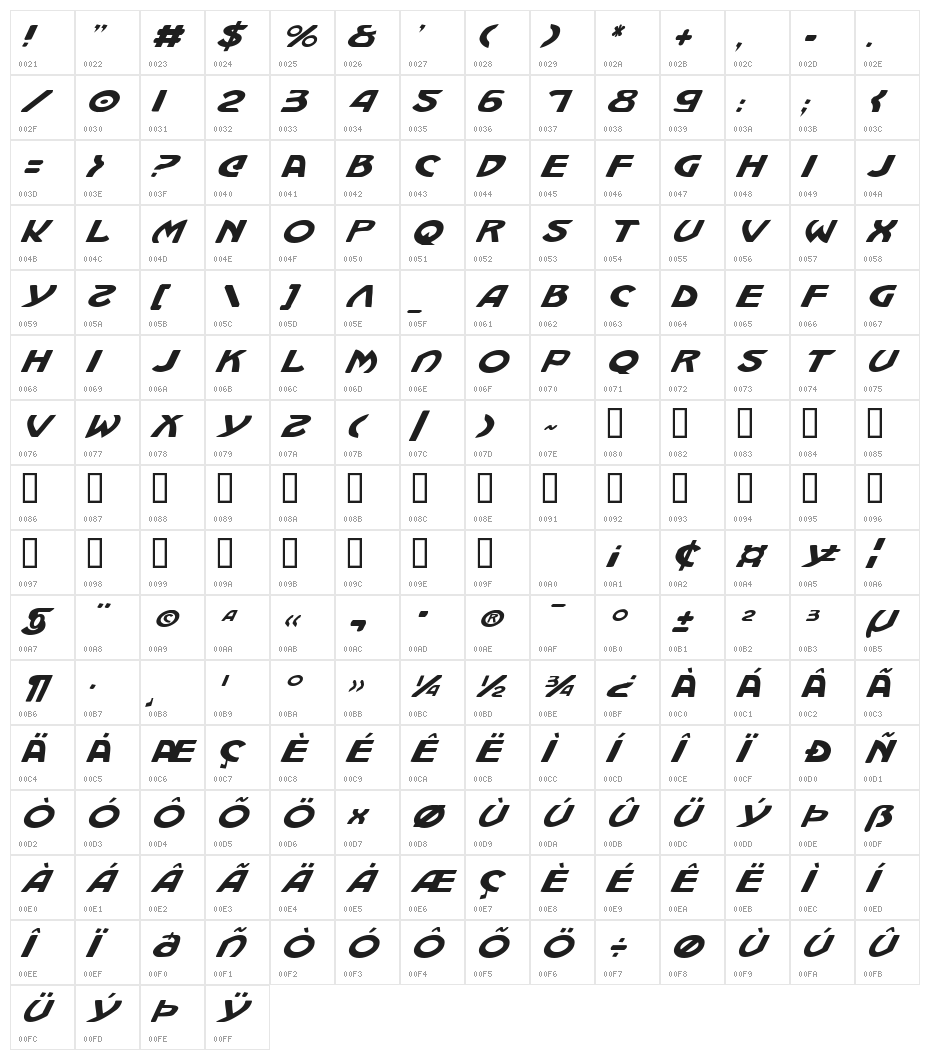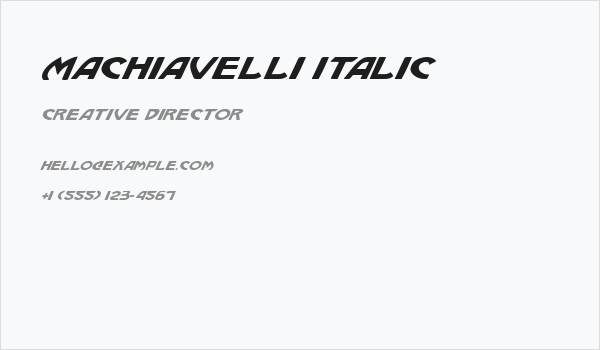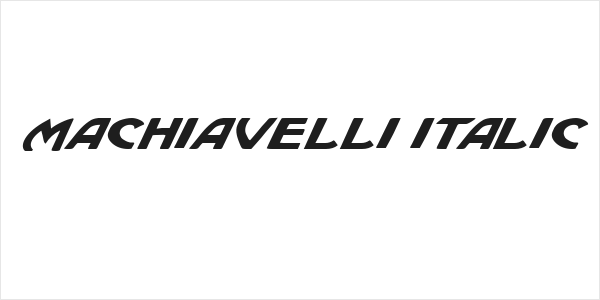
Machiavelli Italic Font
Machiavelli Italic Description
This font features a dynamic and slanted design, exuding a sense of motion and energy. The characters are bold and slightly condensed, with a consistent italic slant that adds a sense of urgency and modernity. The strokes are thick and uniform, providing a strong visual impact. The uppercase and lowercase letters maintain a cohesive style, with smooth curves and sharp angles that enhance readability while maintaining a stylish appearance. The numerals and special characters follow the same design principles, ensuring a harmonious look across all text elements.
| Proposed Projects | Ideal for branding, sports team logos, dynamic posters, and modern advertising campaigns. |